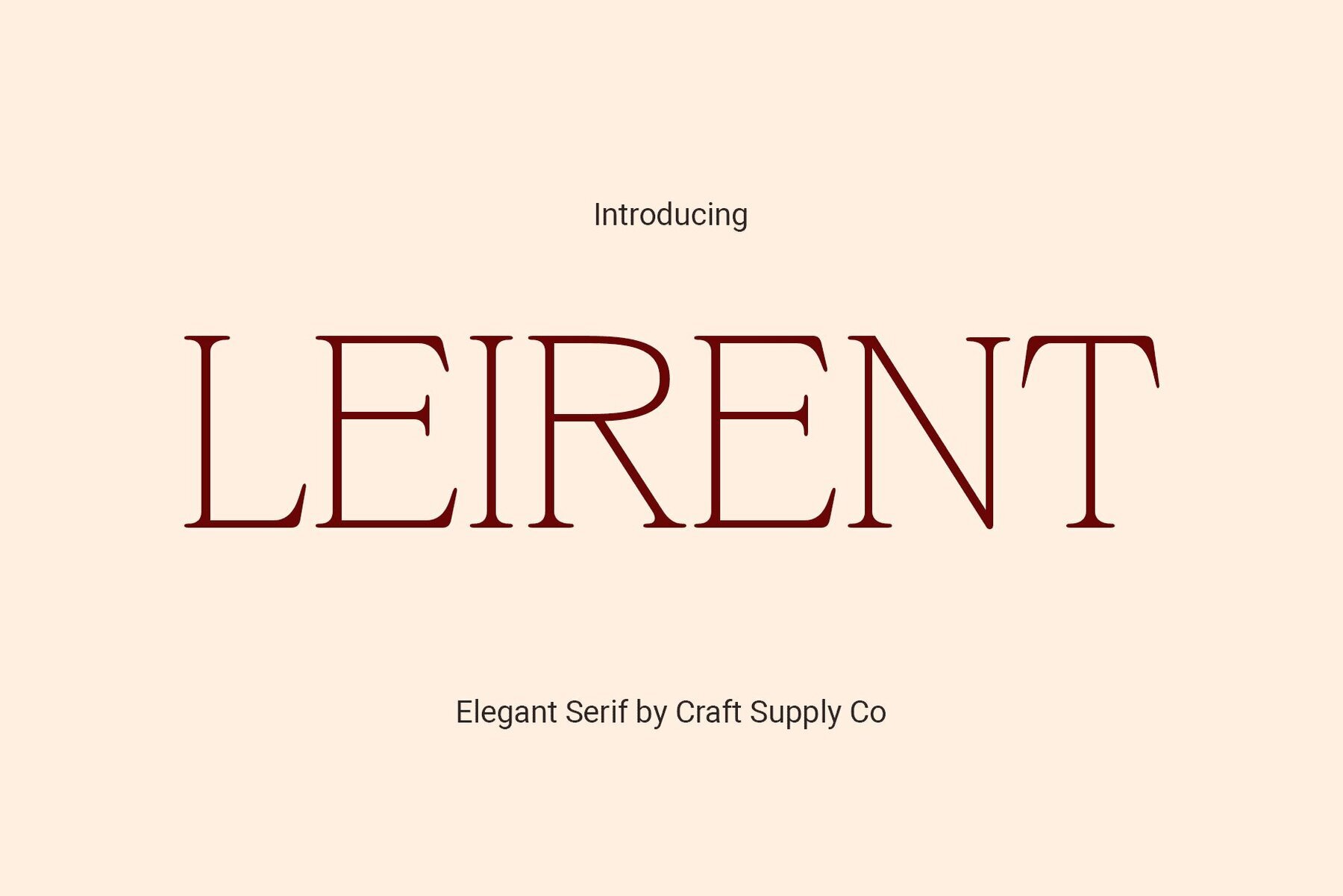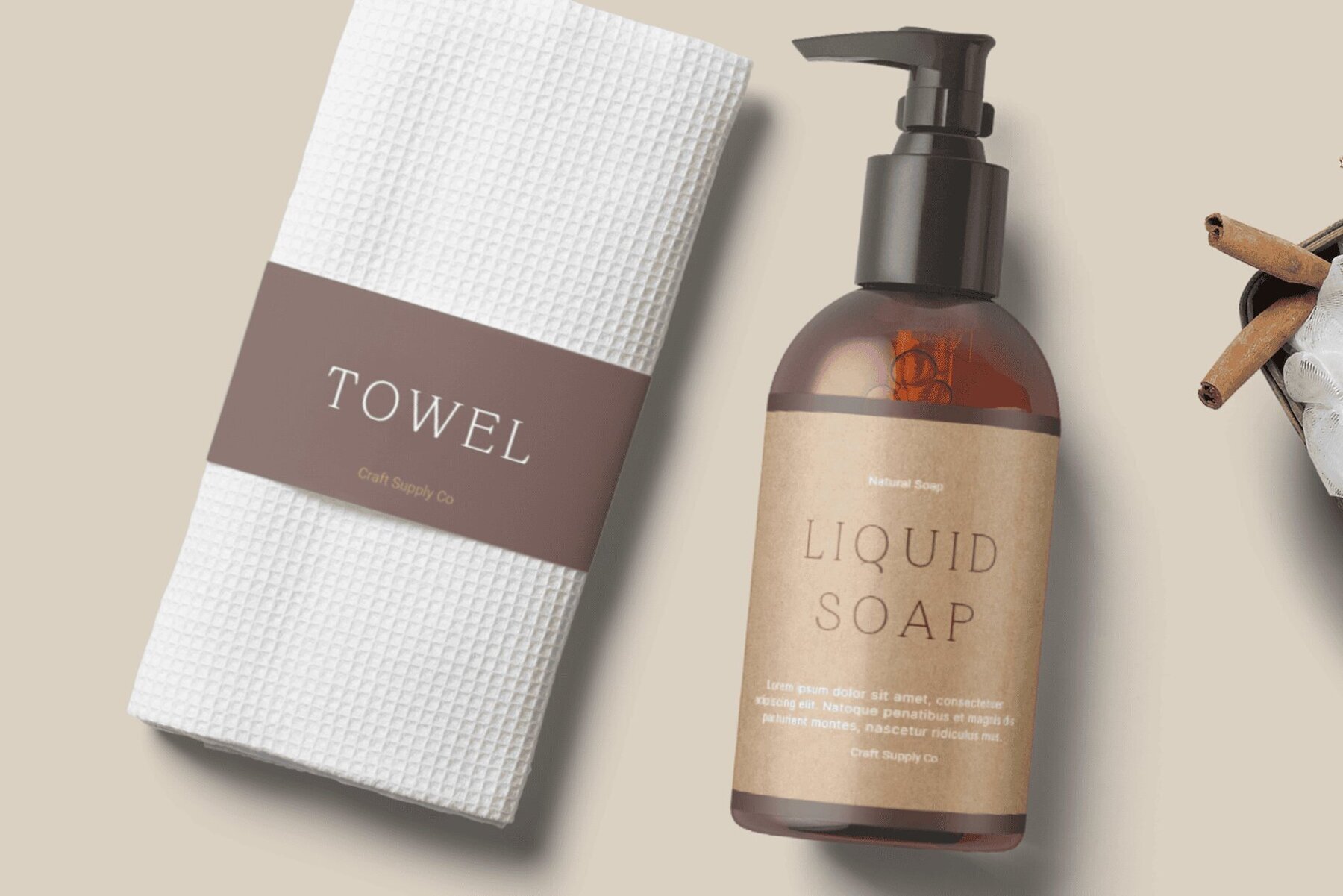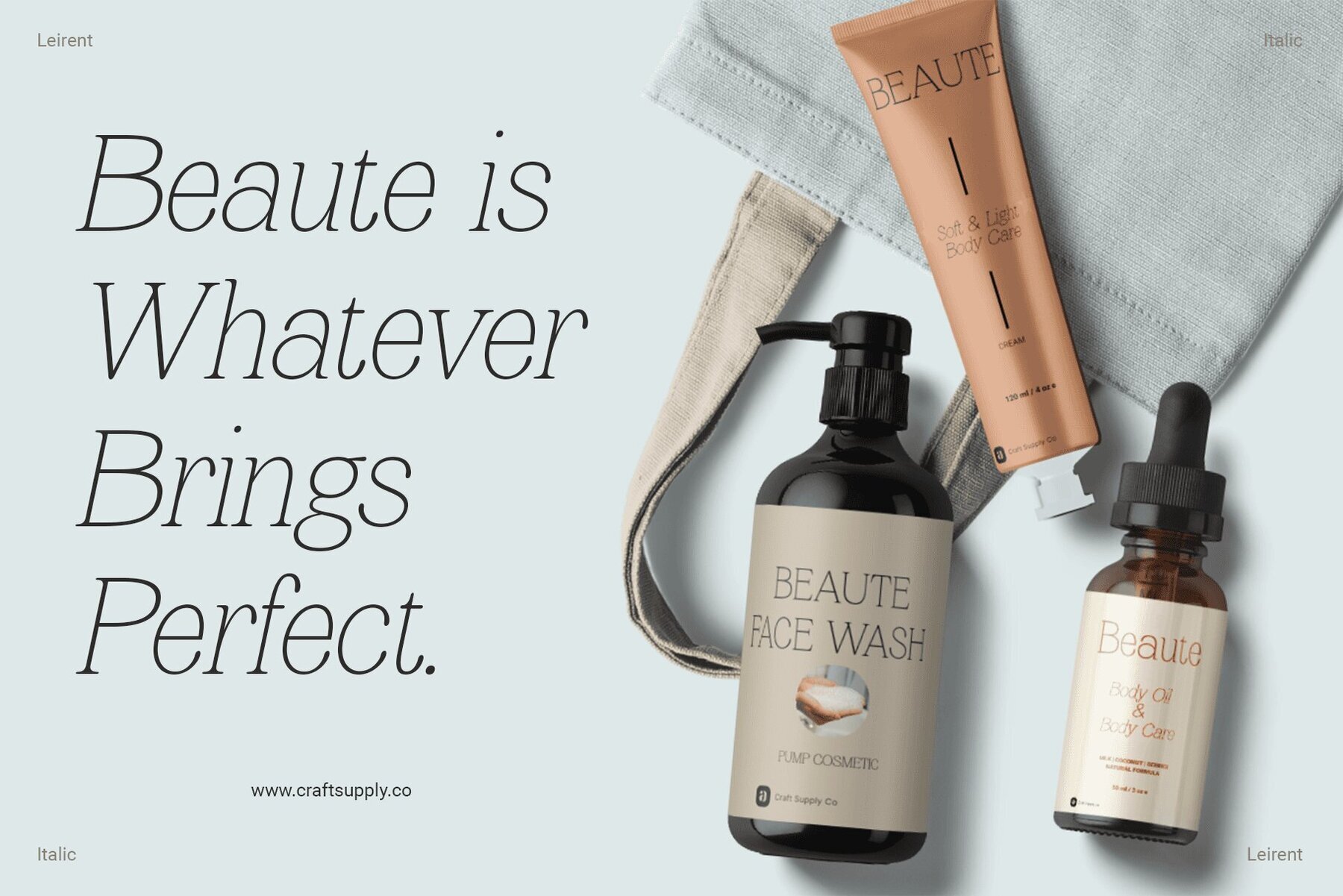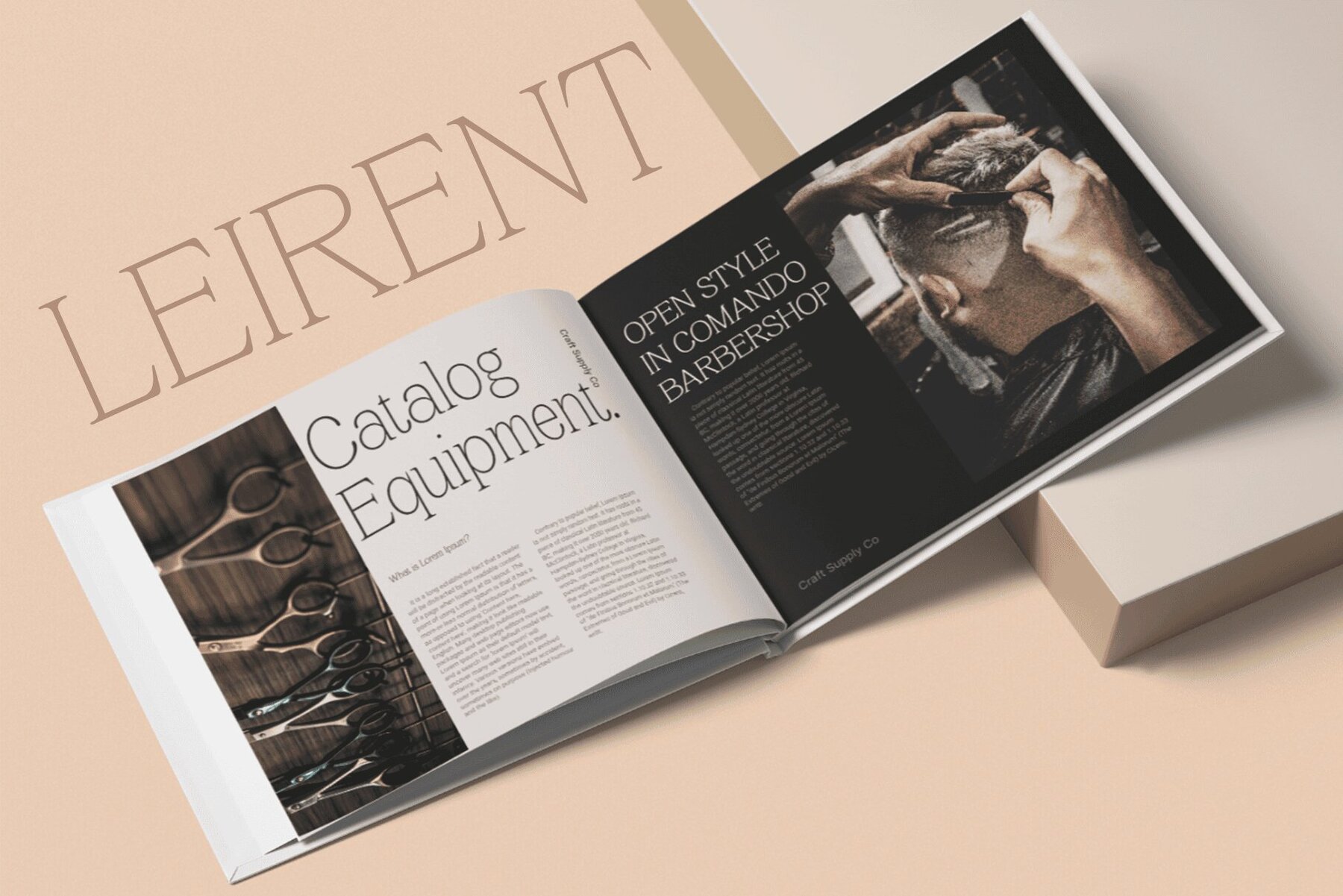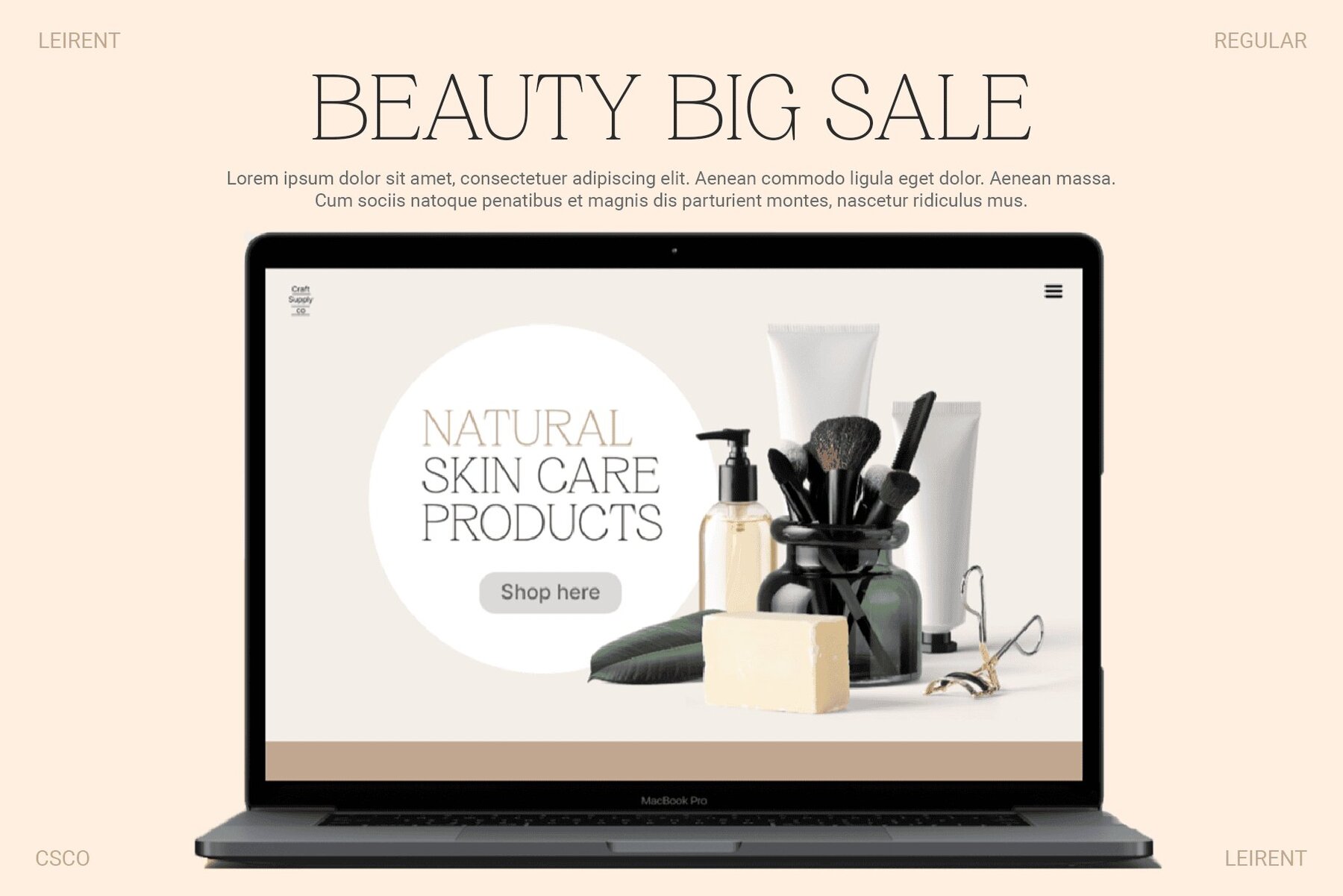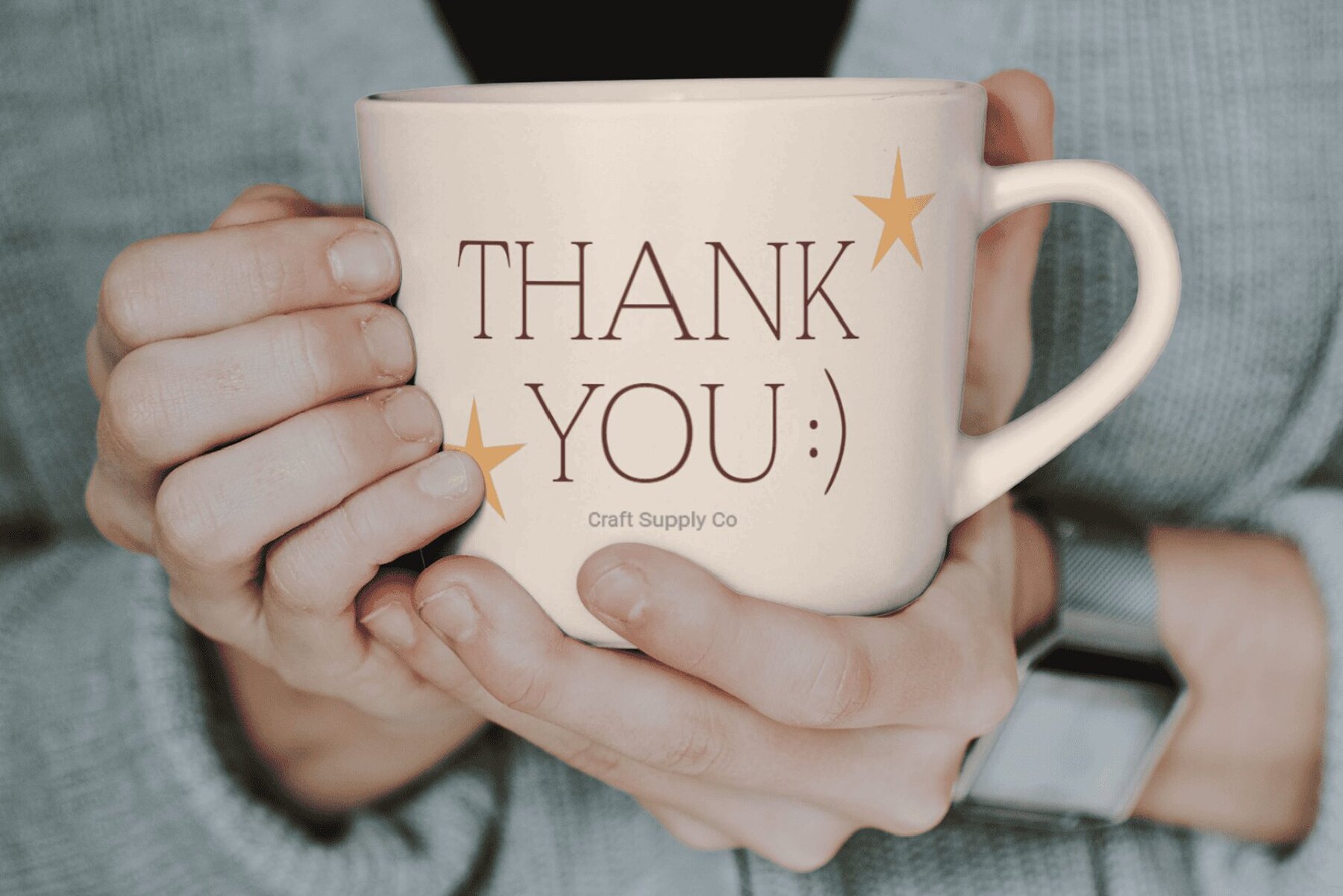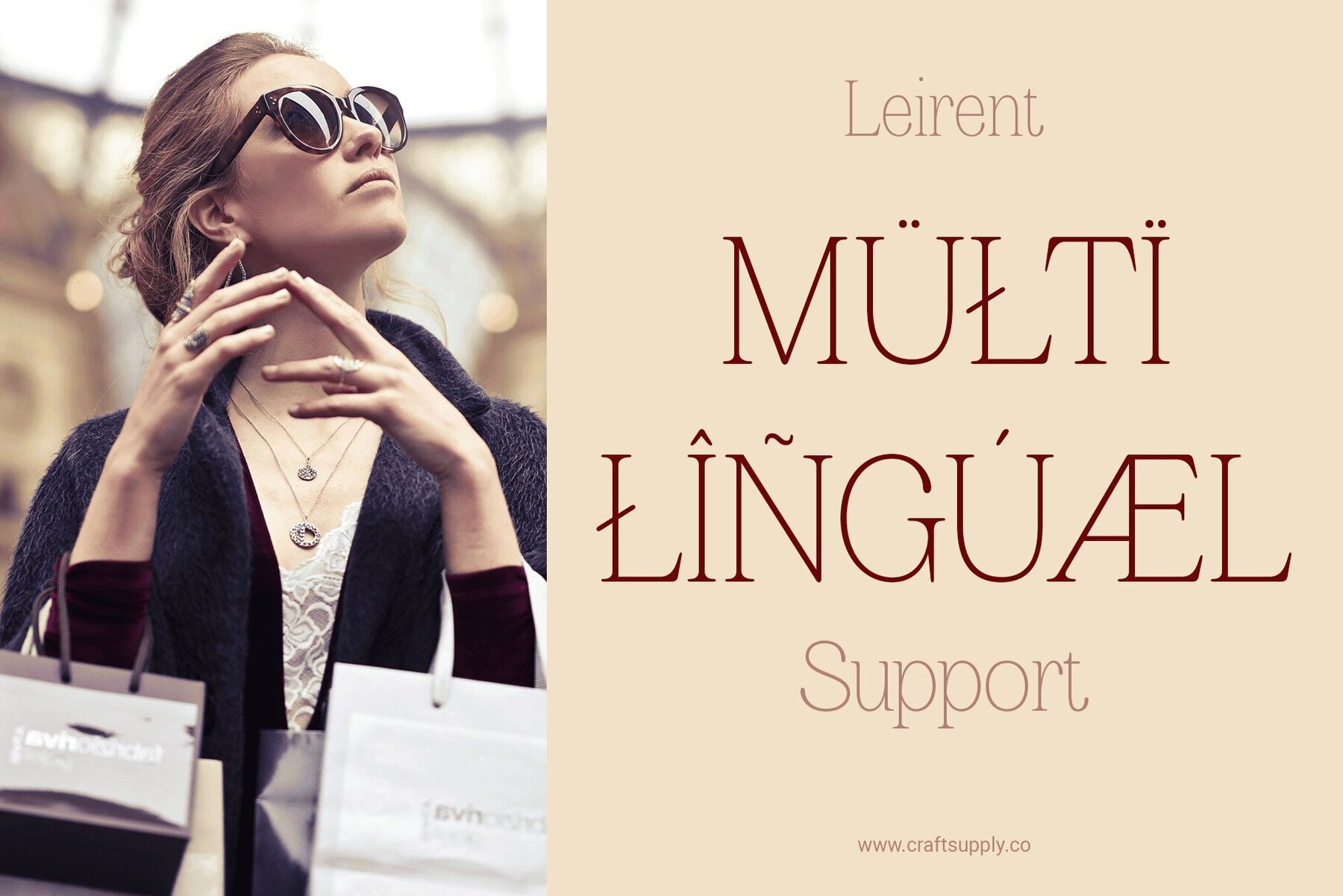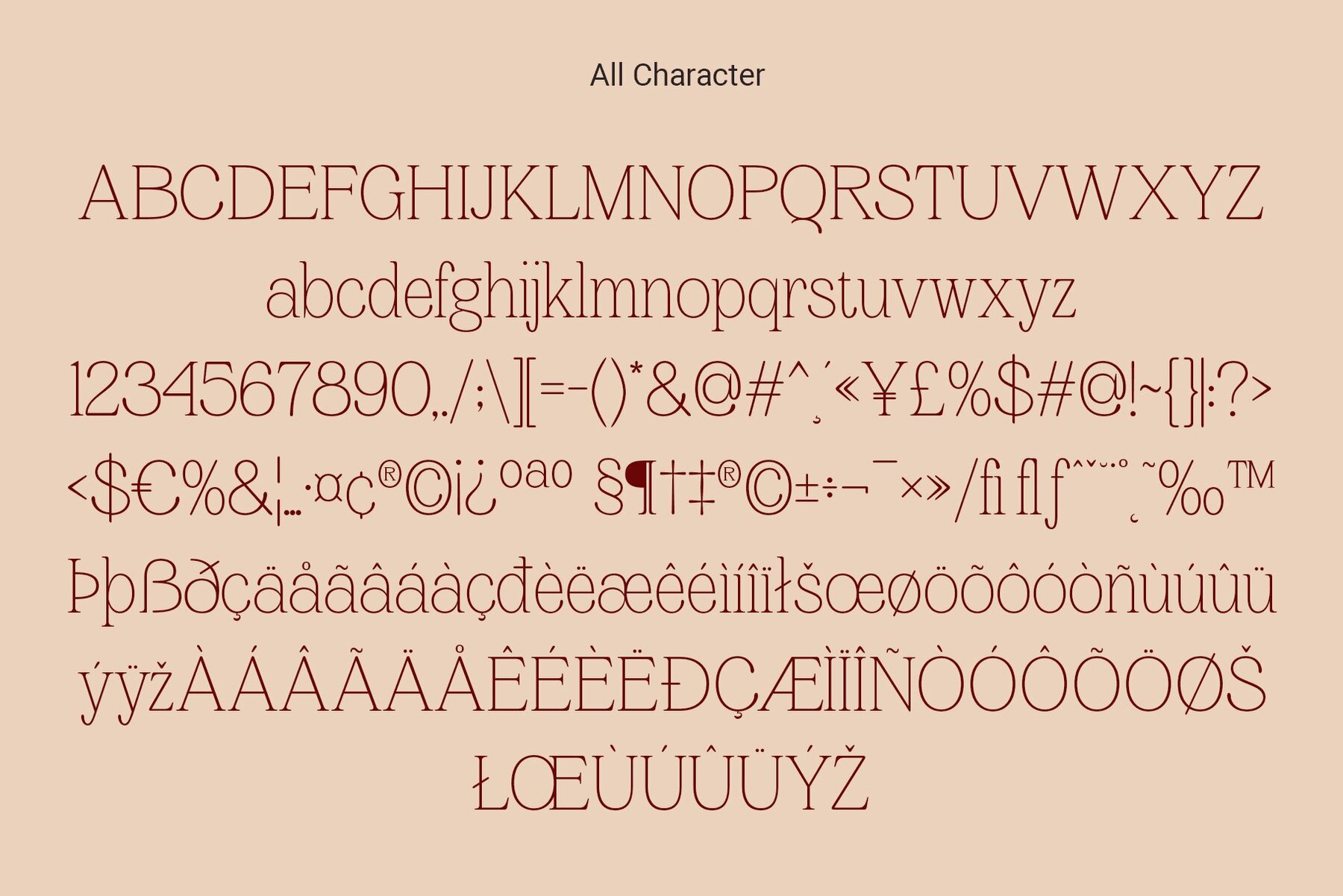
Leirent Font
Leirent embodies understated sophistication with its low-contrast serif design and slender proportions. Its thin strokes and gentle curves exude an aura of refined elegance. Designed to evoke a sense of sophistication and grace, Leirent is an ideal choice for projects that require an elegant touch. Its subtle nuances and delicate form convey eloquence effortlessly. Despite its delicate appearance, Leirent offers versatility in application. From editorial layouts to wedding invitations, its understated elegance lends a touch of refinement to any project. With its timeless charm, Leirent stands the test of time, remaining relevant in ever-changing design landscapes. Its enduring elegance captivates viewers and leaves a lasting impression. Leirent Serif Typeface emerges as a beacon of understated sophistication in serif typography. Its low-contrast design and delicate form redefine elegance, making it a versatile choice for projects that demand refined aesthetics and timeless appeal. Experience the subtle allure of Leirent and elevate your designs with timeless elegance. You can use this typeface without needing any specialized software. If you have any inquiries or need assistance, please feel free to contact us. We appreciate your support in enhancing your creative projects! Best regards, Craft Supply Co.Leirent: Redefining Elegance in Serif Typeface
Perfect for Eloquent Vibes
Versatile Elegance
Timeless Appeal
Beacon of Subtle Sophistication